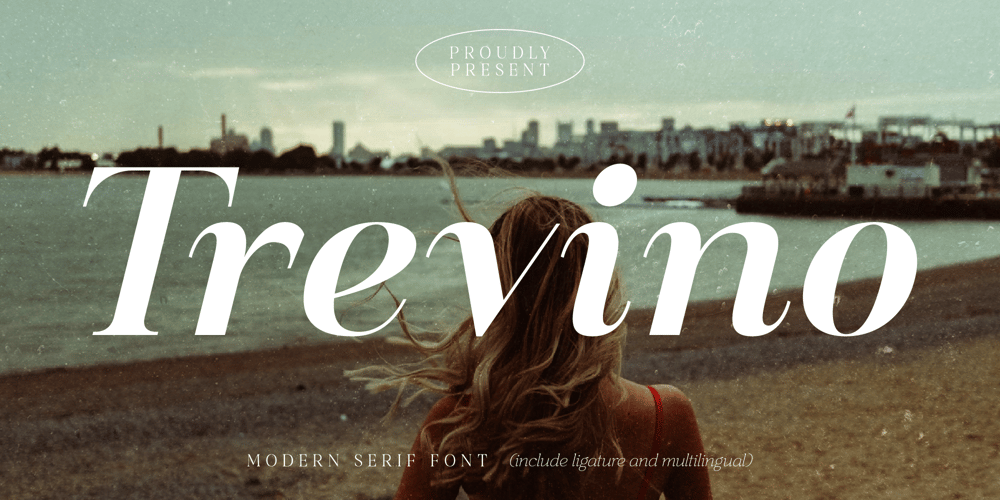
Trevino Font Family was designed by Heru Utama Putra and published by Letterena Studios. Trevino contains 2 styles and family package options. A serif modern and classic typeface that has its own unique style & modern look.This typeface is perfect for an elegant & luxury logo, book or movie title design, fashion brand, magazine, clothes, lettering, quotes, and so much more.